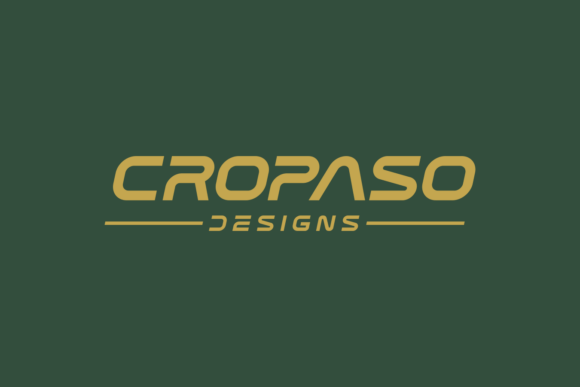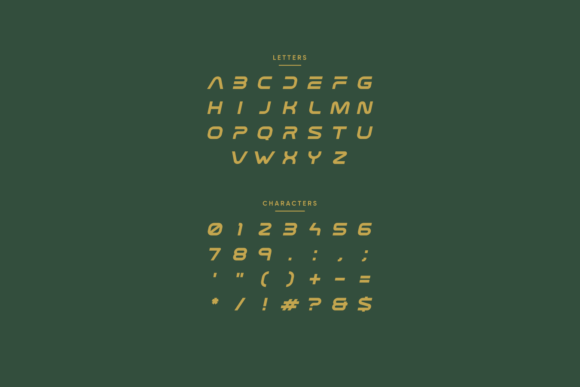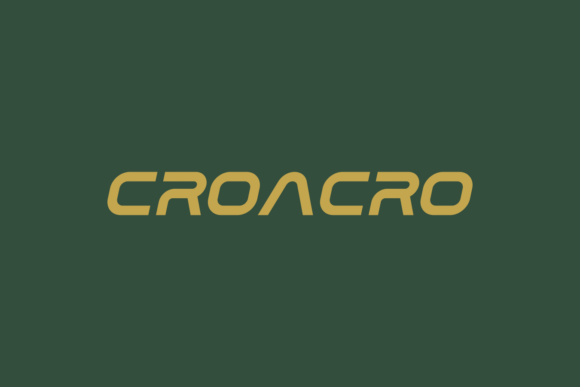
Introduction to Rosnor Font
Rosnor is a modern display font built specifically for sports branding, with minimalist and elegant style.
This font comes with sophisticated, elegant and fresh all-caps style, making it timeless Rosnor will make your design more memorable, itโs perfect adding this font for logo, branding, poster, magazine, digital ads, tech, action sport and future themes.
Key Features of Rosnor Font